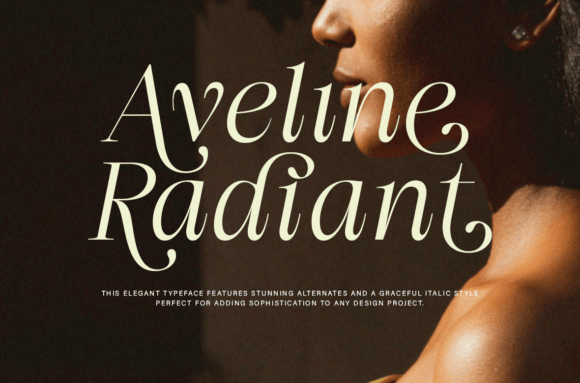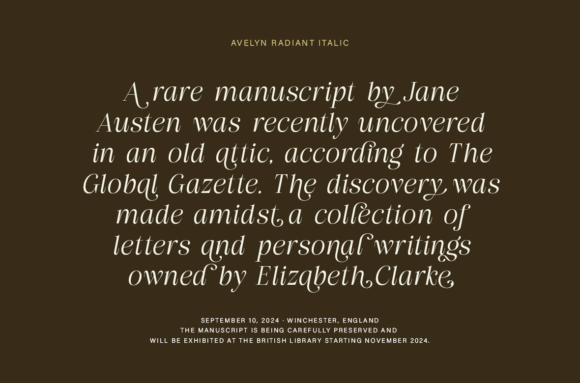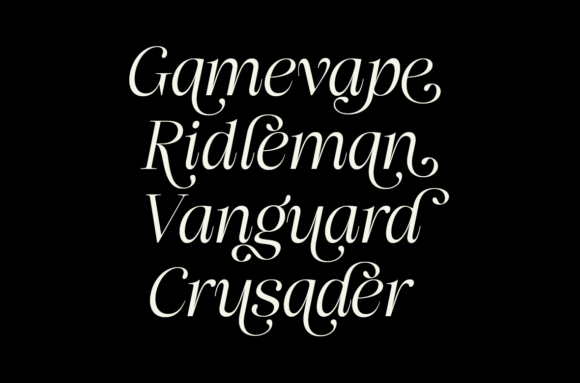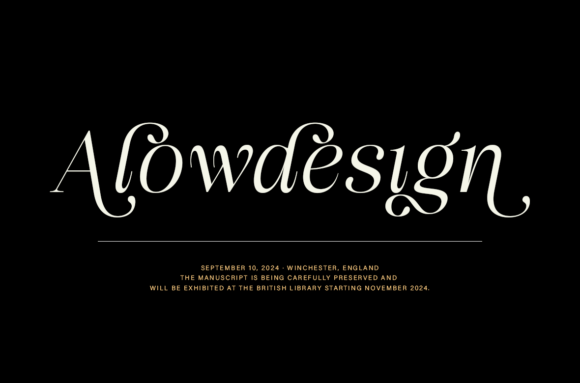
Aveline Radiant Font
About the Aveline Radiant Font
Experience the unique personality of Aveline Radiant Font, a font designed for impact. Aveline Radiant is a luxurious serif typeface crafted to elevate your creative projects with timeless beauty and refined elegance. Featuring stunning stylistic alternates and graceful italic curves, this font brings a touch of sophistication to branding, editorial layouts, wedding invitations, and premium visual identities. Designed for designers who seek both beauty and versatility, Aveline Radiant is the perfect choice to make a lasting impression.
Aveline Radiant excels in headline treatments, short-form text blocks, and logo design where its elegant serifs and refined details shine. It is ideal for luxury branding, high-end packaging, and sophisticated print projects such as invitations or brochures. However, its ornate nature makes it less suitable for body text or UI elements, where readability over long passages is paramount.
Its inherent elegance pairs beautifully with clean sans-serif fonts like Montserrat or Open Sans for a balanced contrast. For a more traditional feel, consider pairing it with a classic serif like Garamond or a graceful script like Great Vibes, depending on the desired level of formality.
Aveline Radiant projects a sophisticated and timeless personality, conveying luxury, quality, and understated elegance. It is best suited to brands seeking a refined aesthetic and aiming to communicate prestige and high value.